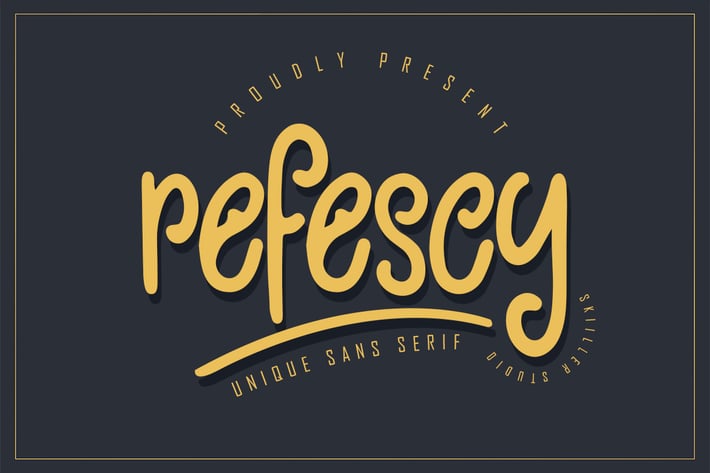
Refescy - Unique Sans Serif Font
Refescy is a cool and techno looking and bold display font. This font is ideal for writing web designs, business cards, or pretty much anything else that requires a unique touch.